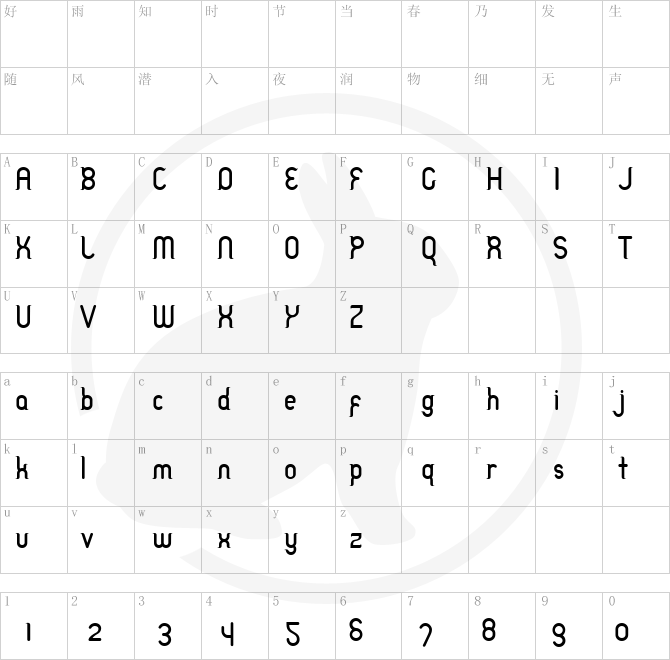
- Font Name:TableManners
TableManners-Proper.ttf is a very beautiful artistic font, TableManners-Proper.ttf is widely used in the design and printing of various books and pictures,TableManners-Proper.ttf has a strong visual impact,TableManners-Proper.ttf is a commonly used font in newspapers, magazines and books, and is used in posters, e-commerce Poster design, store design, logo design, font design and other fields.TableManners-Proper.